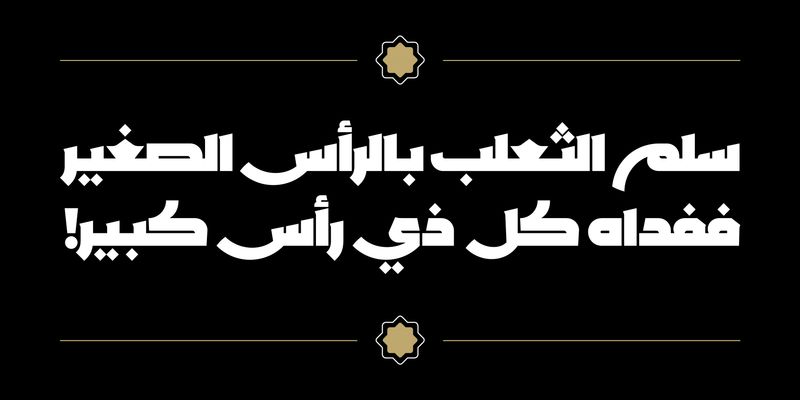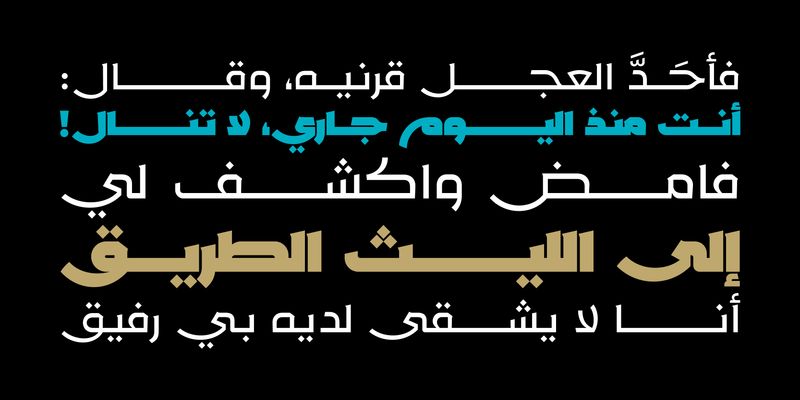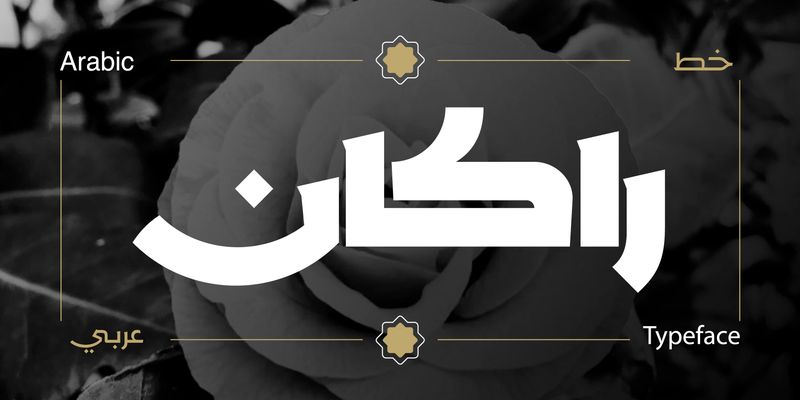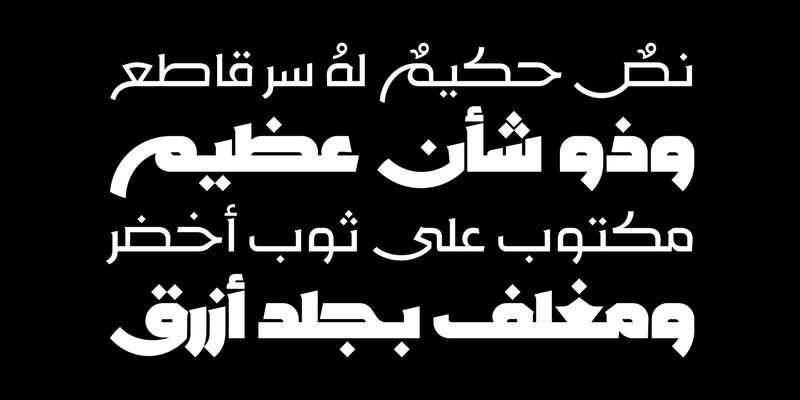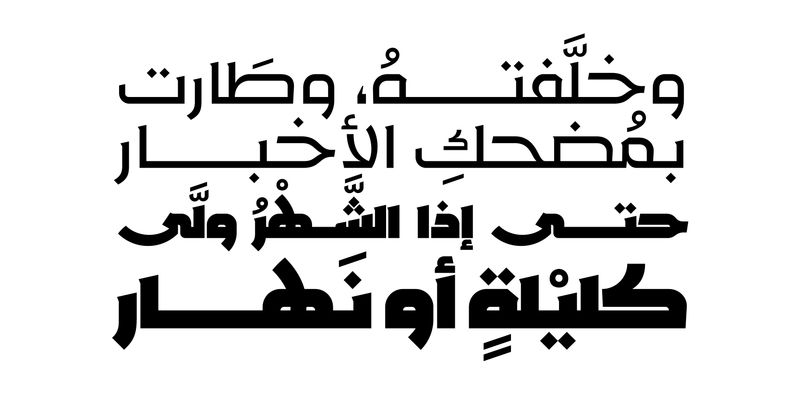
Rakan (Arabic for “Sedate”) is a refined Arabic display font that blends contemporary design with the timeless spirit of the Kufic script. Its calm yet confident letterforms bring a modern edge to advertising, branding, editorial layouts, and high‑impact visual communication.